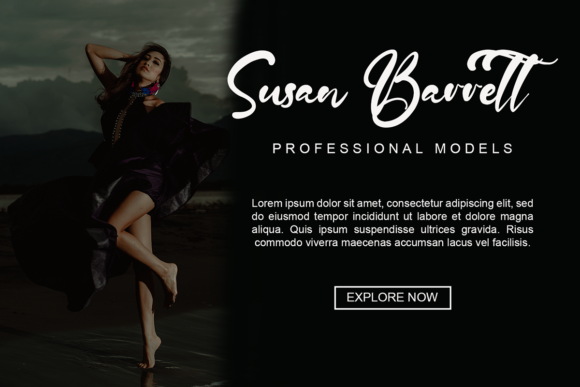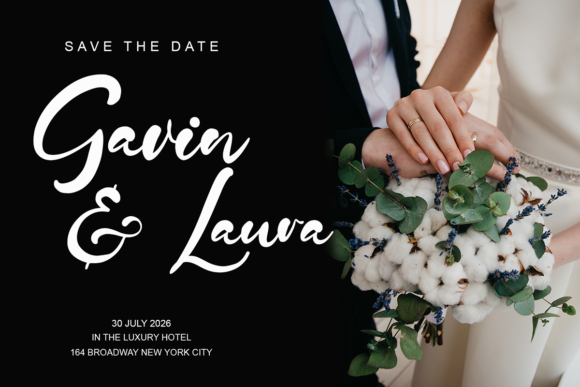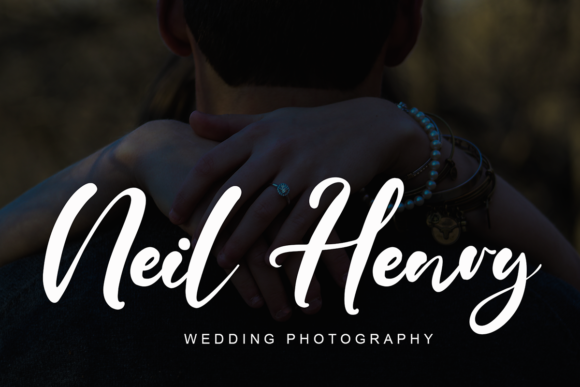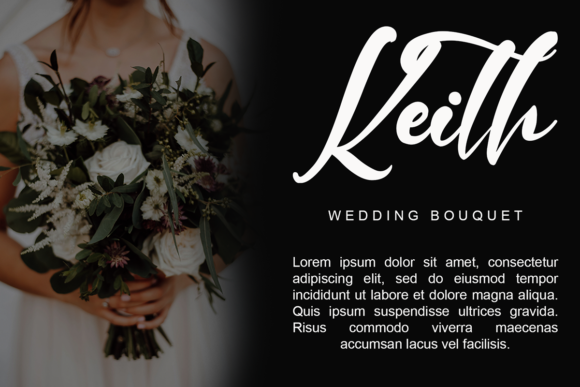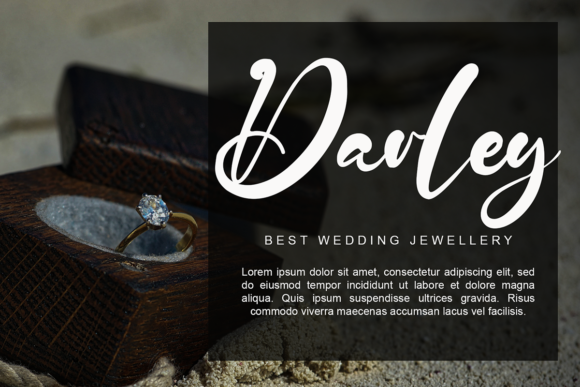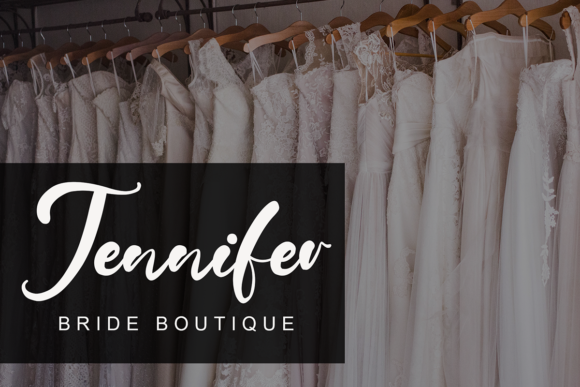
Introduction to Rotterdam Canal Font
Remember the thrill of discovering that perfect font for your creative project? The one that elevates your design from good to great? For designers, finding the right font can be the difference between a mediocre project and a masterpiece. One such gem is the Rotterdam Canal Font, a modern script typeface that has been making waves in the design community.
With its high-quality design and versatility, the Rotterdam Canal Font is an invaluable resource for any creative project. Whether you’re working on a logo, branding, digital lettering, or signage, this font is sure to impress. And the best part? It’s available for free download, making it an accessible design resource for designers of all levels.
Key Features of Rotterdam Canal Font
- High-quality design resource ideal for creative projects, such as graphics, logos, and digital art.
- Unique characteristics include a modern, urban aesthetic and a wide range of glyphs, making it suitable for a variety of creative projects.
Honest Review: Rotterdam Canal Font
I recently stumbled upon the Rotterdam Canal Font and I must say, it’s a great addition to any design resource collection. The font is free to download, which is a major plus for me.
- High-quality design that captures the essence of the Rotterdam canal
- Transparent background makes it easy to use in various creative projects
- Modern and sleek aesthetic that adds a touch of sophistication to any design
- Only available in one weight, which might limit its versatility
- Not suitable for projects that require a lot of text manipulation, due to its unique design
Overall, I’m impressed with the Rotterdam Canal Font. It’s a great design resource for those looking to add a touch of Amsterdam’s charm to their creative project. While it has some limitations, it’s a high-quality font that’s worth checking out.
The Rotterdam Canal Font is ideal for various creative projects, including graphic design, digital art, and publishing. It’s a free download, making it a valuable resource for designers and artists looking for a high-quality font with a transparent background.
Alternatives to Rotterdam Canal Font
Paris Font
The Paris Font is a high-quality, elegant design resource ideal for creative projects that require a sophisticated touch. It features a transparent background and is perfect for use in logos, titles, and headings. When to use: For luxury brands, high-end fashion designs, and upscale creative projects. Comparison: The Paris Font has a more refined and classic feel compared to the Rotterdam Canal Font, which has a more modern and edgy vibe.
London Font
The London Font is a versatile design resource suitable for a wide range of creative projects. It features a transparent background and is available for free download. When to use: For urban-themed designs, city maps, and travel-related projects. Comparison: The London Font has a more rugged and industrial feel compared to the Rotterdam Canal Font, which has a more sleek and modern design.
Amsterdam Font
The Amsterdam Font is a unique design resource featuring a transparent background and a high-quality, creative design. It is perfect for use in logos, titles, and headings. When to use: For travel-related projects, city maps, and cultural designs. Comparison: The Amsterdam Font has a more whimsical and playful feel compared to the Rotterdam Canal Font, which has a more modern and sophisticated design.